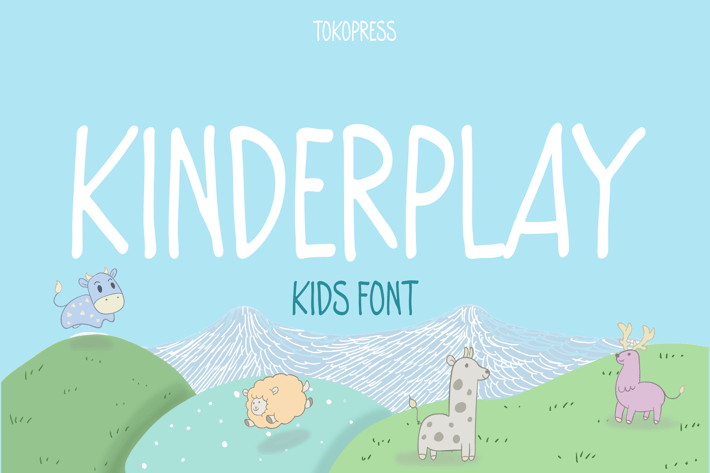
Kinderplay - kids font
Kinderplay - Kids Font
Kinderplay is a gentle, storybook-inspired children’s font with a friendly feel and smooth, hand-drawn curves. Designed for early readers and soft storytelling, it combines a bouncy baseline with rounded terminals, evoking warmth, safety, and curiosity. Its clean readability and informal charm make it ideal for kid-focused branding, bedtime story covers, preschool visuals, and digital parenting media. Kinderplay has an expressive, soft-spoken personality that supports both emotional connection and design clarity.
Whether you're creating YouTube thumbnails for parenting tips, designing a bedtime storybook, or branding an educational toy line, Kinderplay helps you speak directly to children and families with care and charm. Its approachable aesthetic makes it perfect for editorials, early education products, and playful online platforms. With Kinderplay, your message feels safe, friendly, and made with love—which builds trust in a family-focused audience.
Key Features :
Friendly & Flexible
- Rounded letterforms that feel approachable and cozy
- Clear and balanced—perfect for young readers
- Suitable for print, digital, and video formats
Child-Focused Usability
- Designed for preschool, kindergarten, and parenting contexts
- Encourages readability and emotional warmth
- Looks great in large headlines or small captions
* Creative Compatibility
- Complements illustrations, icons, and soft palettes
- Ideal for bedtime content, education brands, or soft-sell promotions
- Brings consistency to kid-first visual storytelling